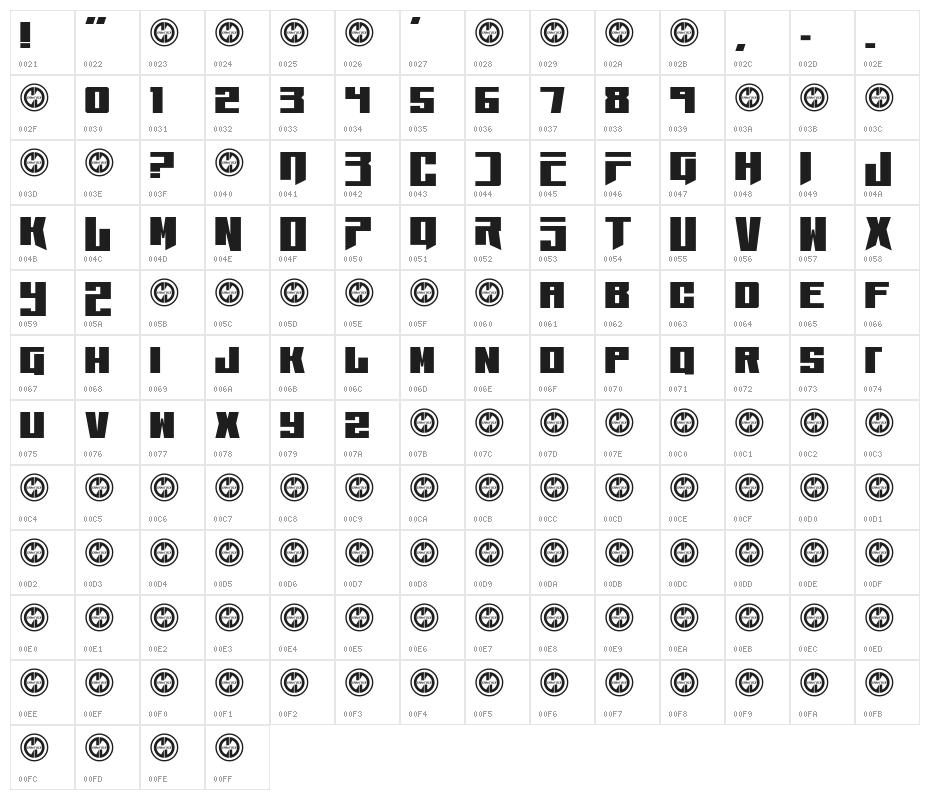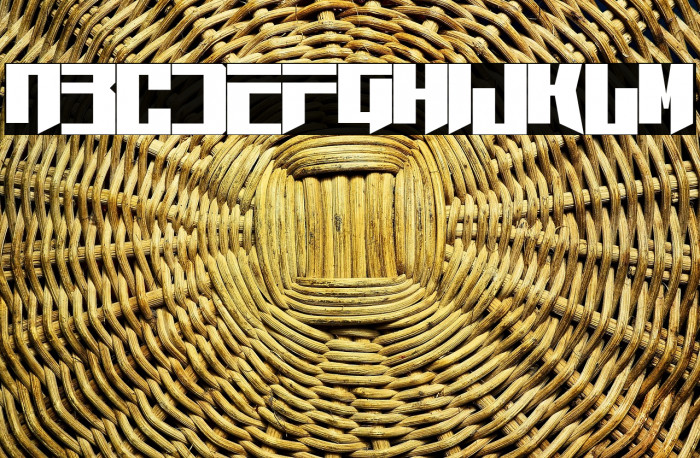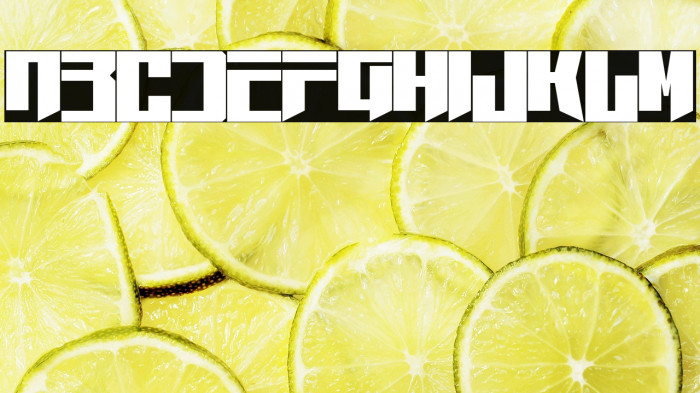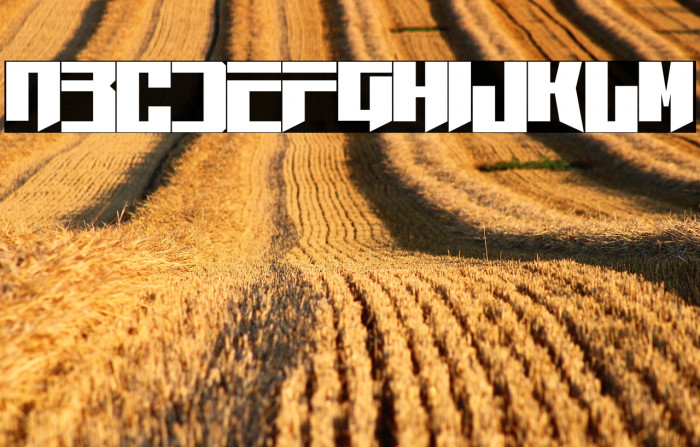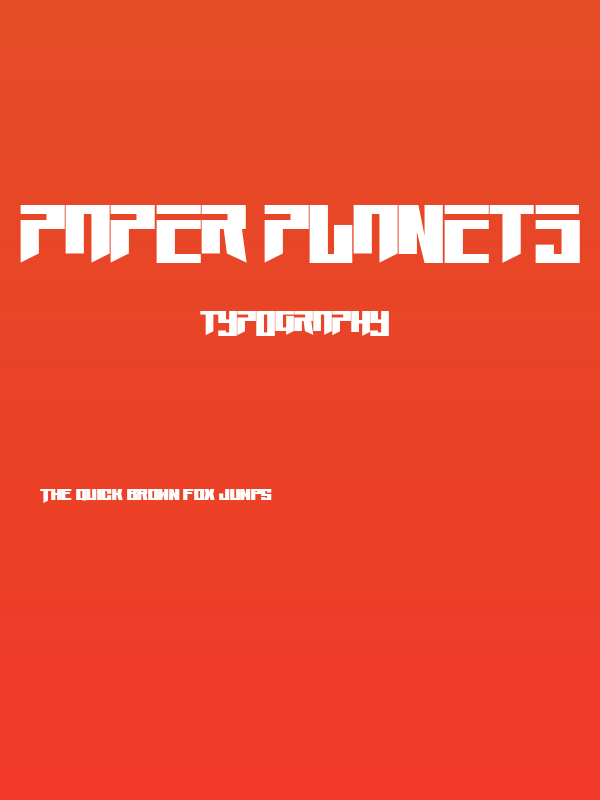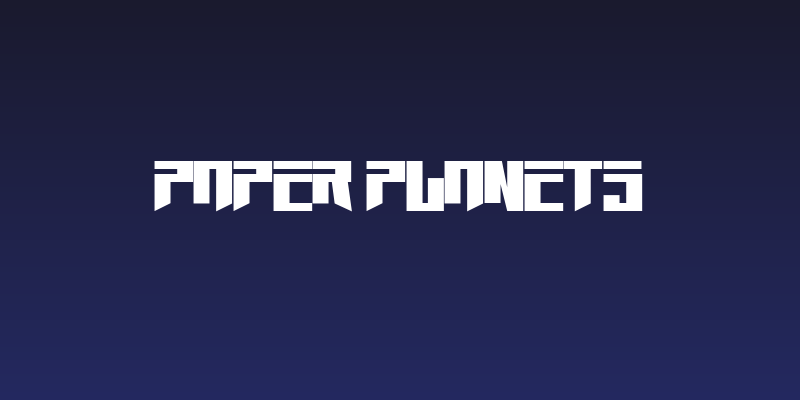
Paper Planets Font
✎ Futuristic
| Gesamtstil | Futuristic, Mechanical |
| Vorgeschlagene Projekte | Ideal for sci-fi themed posters, video game titles, tech branding, and futuristic designs. |